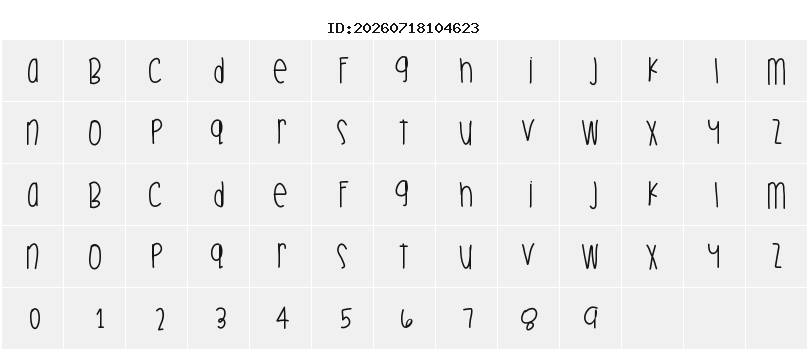
About CelebrationTime.ttf
CelebrationTime.ttf is a modern, elegant sans-serif font designed for ultimate readability and visual harmony. Perfect for branding, headlines, web design, and print materials.